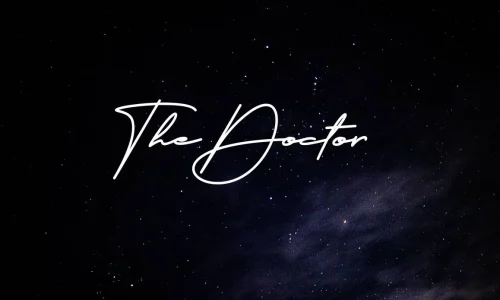
Syllabus Font is a very famous typeface developed by Robert Gotham. This staggering typeface belongs to the Script typeface. This awesome typeface was launched on December 6, 2003, by Microsoft Corporation. It is one of the most widely used typefaces for body text and headlines.
Syllabus Typeface has a very unique style that makes it stand out among other typefaces. The letters are designed to be very thin and delicate, which gives them a flowing look. It makes the font perfect for use in formal or stylish documents. Its alternative begundal font is suitable for many designs.
| Name | Syllabus Font |
| Designer | Robert Gotham |